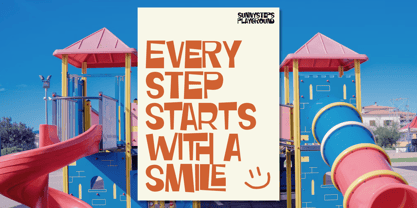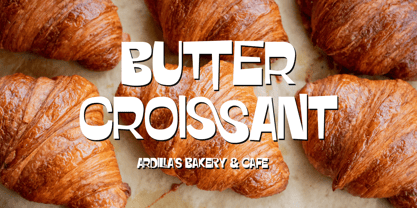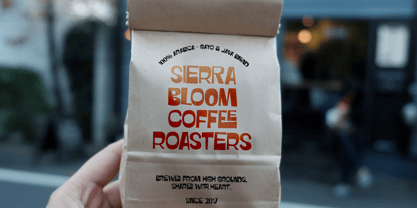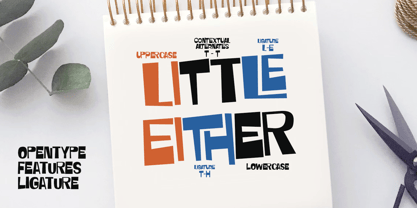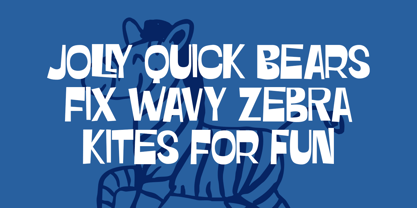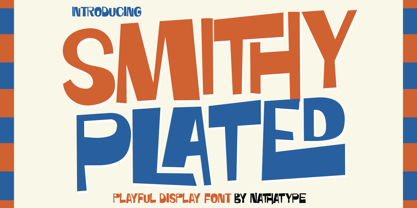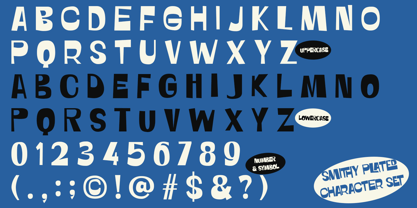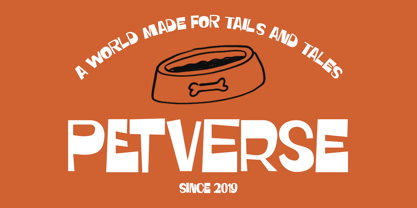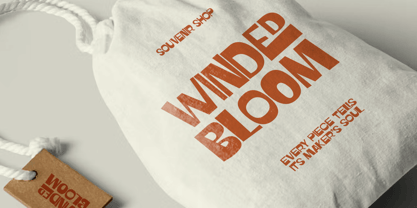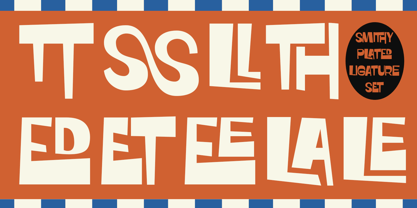
Smithy Plated
by Nathatype
The Smithy Plated Font Family was designed by Donis Miftahudin and published by Nathatype. Smithy Plated contains 1 styles. More about this family
Smithy Plated is a bold uppercases display font crafted to deliver strong visual impact with a handcrafted twist. Designed with varying letter weights, this font brings an expressive character to your typography, making every word stand out with confidence and personality. The unique contrast between thick and thinner strokes gives Smithy Plated an artistic and eye-catching look, perfect for designs that demand attention. While its bold structure ensures clarity and readability. In addition, enjoy the features here. Features: Multilingual Supports PUA Encoded Numerals and Punctuations Smithy Plated fits in branding, quotes, apparels, logos, posters, and many more designs. Find out more ways to use this font by taking a look at the font preview. Thanks for purchasing our fonts. Hopefully, you have a great time using our font. Feel free to contact us anytime for further information or when you have trouble with the font. Thanks a lot and happy designing.